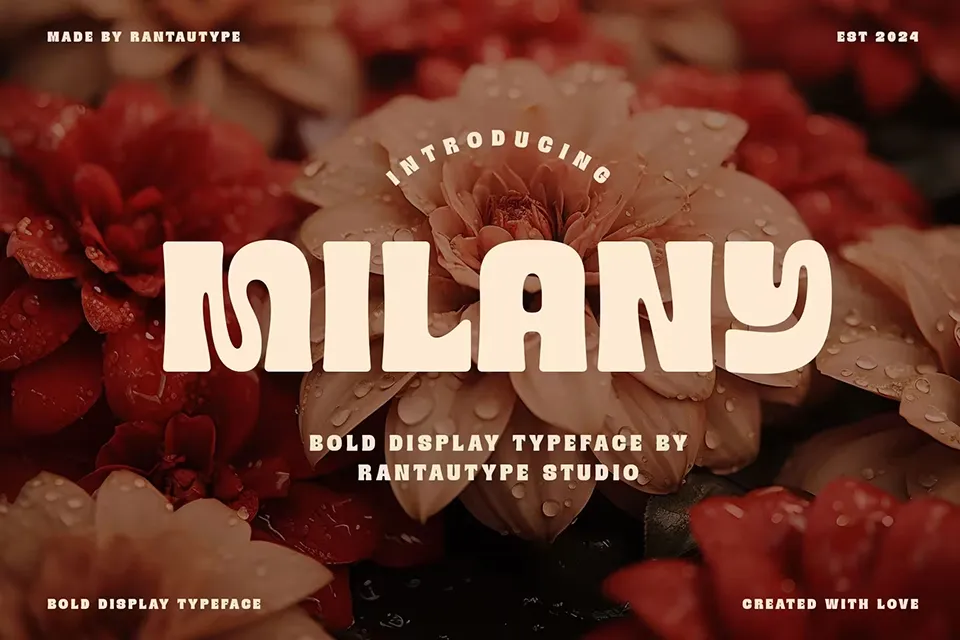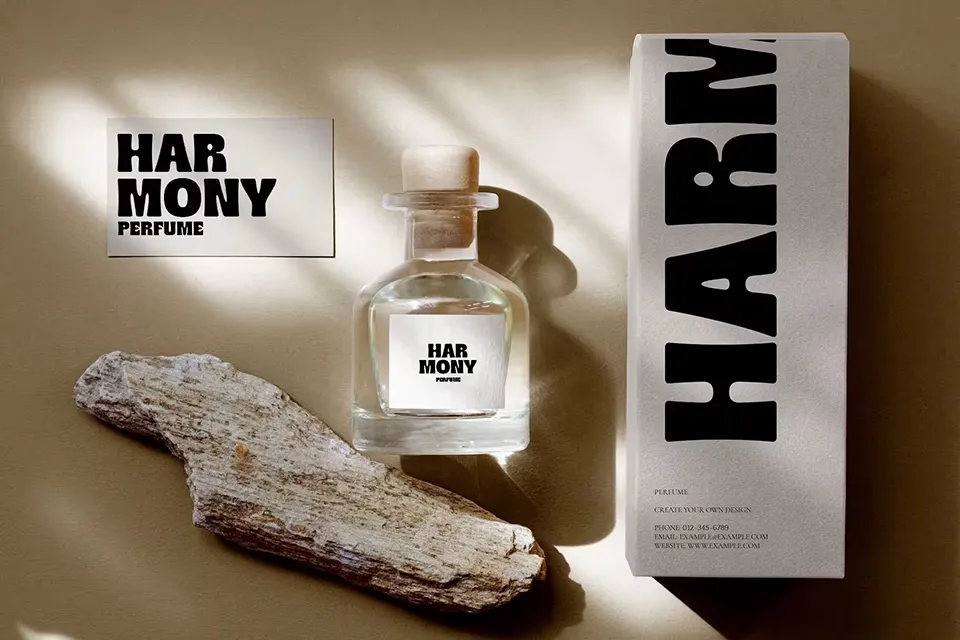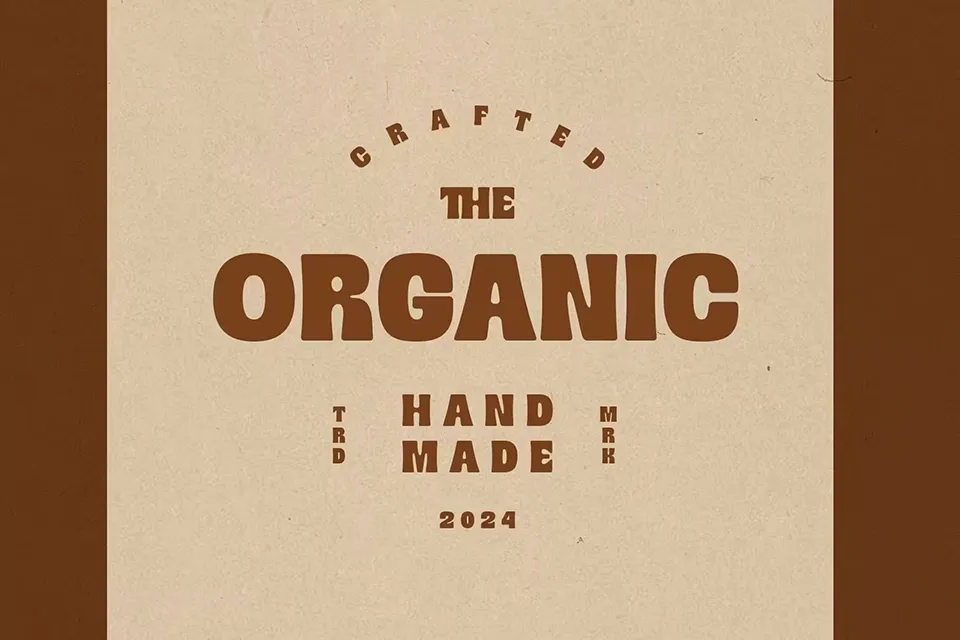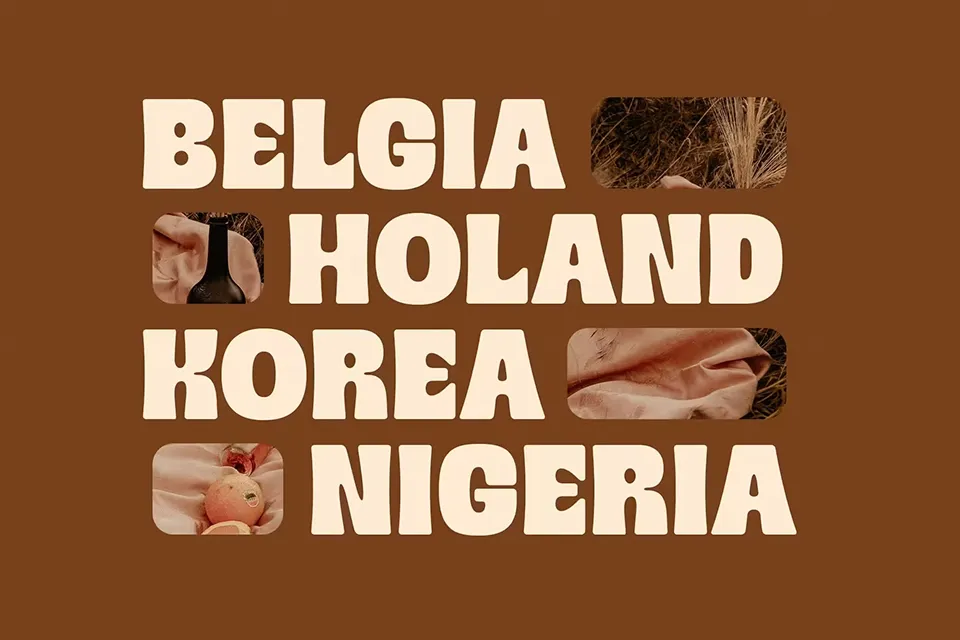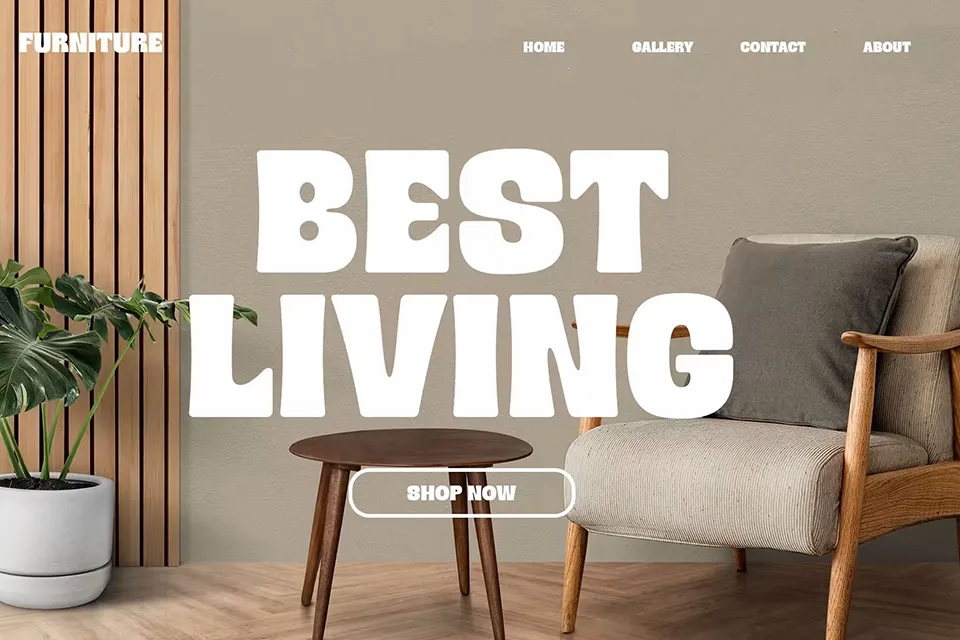
Milany Font
Milany Font, designed by Rantautype, is a modern and elegant retro typeface. This bold display typeface blends a lovable style with a distinct vintage touch, featuring sophisticated, bold, and flowing curves. Its unique look makes it perfect for creative endeavors requiring a chic, retro aesthetic, such as logos, advertisements, watermarks on photography, stationery, branding projects, and magazine displays. Milany is also suitable for invitations, corporate identity, product design, labels, and other business projects seeking a vintage feel. This font is offered free for personal use, while a commercial license is necessary for business applications.